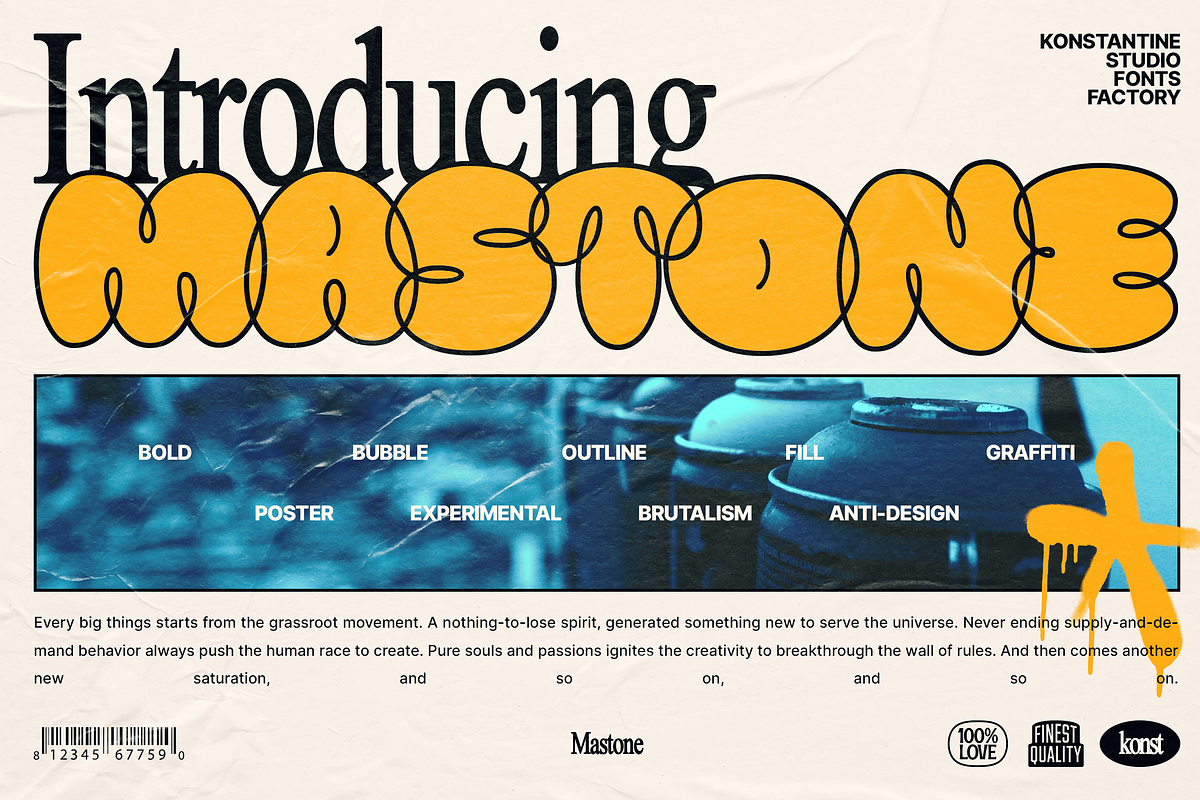
Mastone – Urban Bubble Fonts Free Download is a bold and playful typeface inspired by street art, graffiti, and urban culture. With its bubbly letterforms and energetic vibe, it's perfect for posters, merchandise, album covers, and youth-focused branding. Please note that you must purchase this font for commercial use, but it is available as a free download for testing purposes. Make your designs pop with personality using Mastone – Urban Bubble Fonts Free Download, and bring vibrant, streetwise style to every creative project with this eye-catching display font.